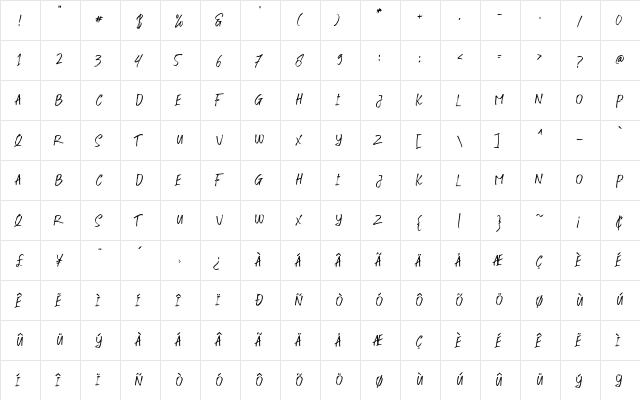
Fusterd Brush Two Regular
| Foundry | FERDIANSYAH_Ijemrockart |
| Designer | FERDIANSYAH_Ijemrockart |
Design Context for Fusterd Brush Two Typeface
Fusterd Brush Two brings a calligraphic fluidity to the page — its connecting strokes and expressive curves give it an unmistakably human quality.
Font Pairing: Combine Fusterd Brush Two with a simple geometric sans for maximum contrast — the tension between flowing curves and clean structure is a classic typographic pairing.
Pro Tip: Pair Fusterd Brush Two with a clean sans-serif for supporting text. The contrast between fluid script and geometric structure creates an elegant typographic hierarchy.